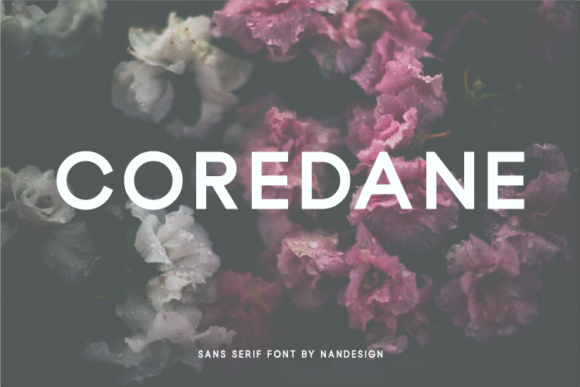
Harnessing the allure of the modern era, Coredane Font, a sans serif masterpiece, beckons you on a typographic adventure. Its meticulously crafted letters, sharp edges, and graceful curves ignite a symphony of elegance and sophistication that's sure to captivate the hearts of designers and creatives alike.
Step into a world where artistry and functionality dance in perfect harmony. Coredane Font's clean lines and minimalist aesthetic render it the ideal choice for a myriad of design endeavors. From the delicate finesse of wedding invitations to the bold impact of marketing campaigns, Coredane's versatility ensures your message shines through with unparalleled clarity and allure.
Immerse yourself in the boundless creative possibilities that await. Coredane Font's charm lies in its ability to elevate ordinary designs into extraordinary expressions of art. Unleash your imagination and transform bland text into visually compelling headlines, logos, posters, and more. Coredane Font is not just a font; it's an artistic conduit that empowers you to paint your vision onto the digital canvas.
Crafted with the utmost care and precision by the renowned Nan Design, Coredane Font carries the legacy of excellence and innovation. Trust in the expertise of a font family that has consistently pushed the boundaries of design, delivering fonts that have graced countless projects worldwide.
With Coredane Font at your disposal, you're not just acquiring a set of characters; you're embarking on a journey of creative expression that knows no bounds. Let your fingers dance across the keyboard, guided by inspiration, as Coredane Font effortlessly transforms your thoughts into a visual symphony that resonates with your audience.